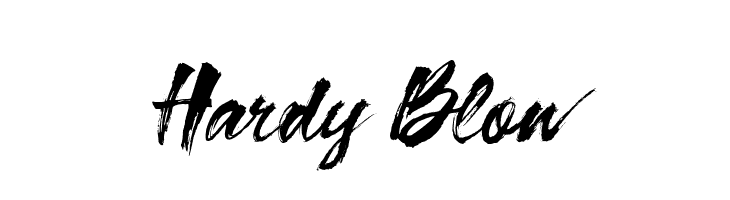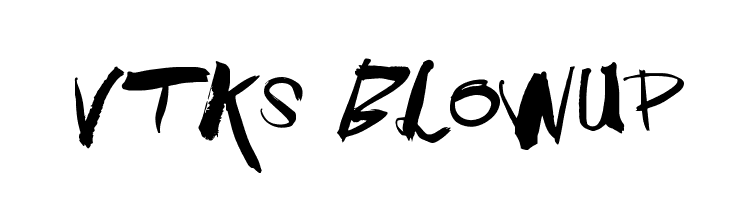
A playful, outlined font with bold, rounded characters resembling inflated bubbles.
A bold, playful, and bubbly font with a cartoonish, balloon-like appearance.
A bold, dynamic brush script with expressive, textured strokes.
A bold, geometric font with a three-dimensional, decorative style.
A flowing, cursive font with elegant, interconnected strokes.
A bold, geometric font with fragmented, block-like characters.
A lively, handwritten script font with bold, fluid strokes.